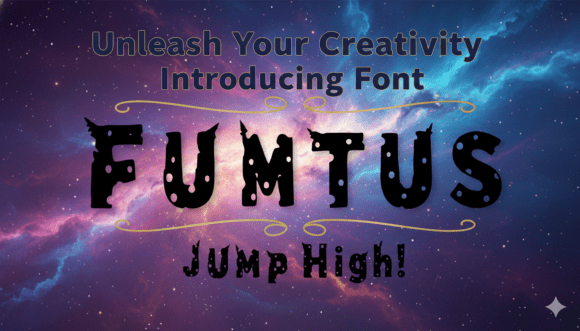
Introducing Funtus Font: Add a Touch of Whimsy to Your Creative Projects
Are you tired of using the same old fonts for your creative projects? Do you want to add a dash of personality and whimsy to your designs? Look no further than Funtus Font, a playful and quirky display font that’s sure to bring a unique charm to your work. With its distinctive dot patterns and irregular edges, Funtus is the perfect choice for designers and crafters looking to add a touch of fun and creativity to their projects.
The Unique Characteristics of Funtus Font
Funtus Font is a one-of-a-kind display font that’s designed to make a statement. Its distinctive dot patterns and irregular edges give it a playful and quirky feel that’s sure to grab attention. The font’s unique characteristics make it perfect for use in a variety of creative projects, from eye-catching headlines and children’s books to branding, posters, and more.
One of the standout features of Funtus Font is its use of dot patterns. The font features a range of dot patterns, from small clusters of dots to larger, more intricate designs. These dot patterns add a level of visual interest to your designs, making them more engaging and dynamic. The irregular edges of the font also add to its playful feel, giving it a hand-drawn look that’s perfect for projects that require a personal touch.
Uses for Funtus Font
Funtus Font is a versatile font that can be used in a wide range of creative projects. Here are just a few ideas to get you started:
- Eye-catching Headlines: Use Funtus Font to create bold, attention-grabbing headlines that will draw readers in. The font’s unique characteristics make it perfect for use in titles, headings, and other prominent text.
- Children’s Books: Funtus Font is a great choice for children’s books, with its playful and whimsical feel making it perfect for stories, titles, and character illustrations.
- Branding: Use Funtus Font to add a touch of personality to your brand. The font’s unique characteristics make it perfect for use in logos, packaging, and other marketing materials.
- Posters: Funtus Font is a great choice for posters, with its bold and eye-catching design making it perfect for promoting events, products, and services.
Tips for Using Funtus Font
Here are a few tips for getting the most out of Funtus Font:
- Use it sparingly: While Funtus Font is a beautiful font, it can be overwhelming if used too much. Use it sparingly to add a touch of whimsy to your designs.
- Experiment with colors: Funtus Font looks great in a range of colors, so don’t be afraid to experiment and find the perfect hue for your project.
- Pair it with other fonts: Funtus Font pairs well with a range of other fonts, so try pairing it with a clean sans-serif font for a bold and modern look.
| Font Name | Fumtus Font |
In conclusion, Funtus Font is a unique and playful display font that’s perfect for designers and crafters looking to add a touch of whimsy to their creative projects. With its distinctive dot patterns and irregular edges, Funtus is sure to bring a level of personality and charm to your designs. So why not give Funtus Font a try and see how it can help you take your creative projects to the next level?
“Jump High!” with Funtus and let your creativity shine! Whether you’re a designer, crafter, or simply someone who loves to create, Funtus Font is the perfect choice for anyone looking to add a touch of fun and personality to their projects.